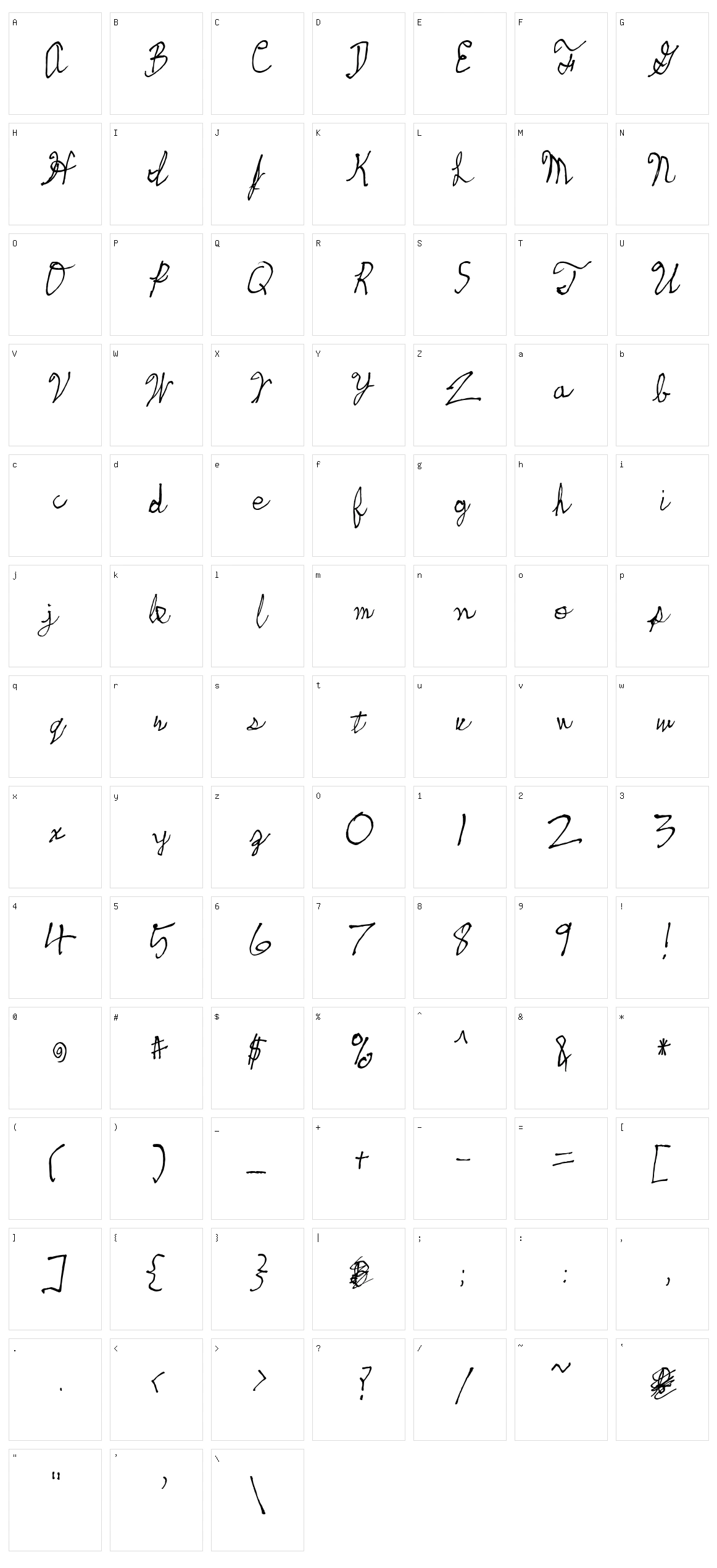
Skeetch
Designed by: Emerald City Fontwerks
Category: Trash
a complex, not completely illegible connecting cursive
crafted from the chicken scratch of crested butte,
colorado's favorite son.
"skeetch"
handcrafted in the emerald city
by steven j. lundeen
emerald city fontwerks